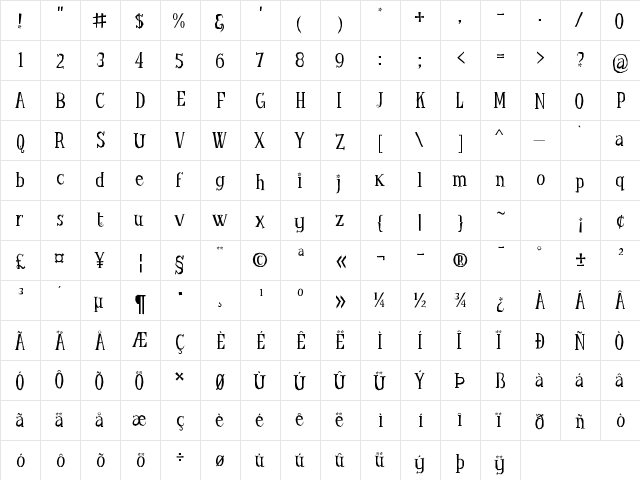
Little Trouble Girl Regular
| Foundry | BV Fonts |
| Designer | Jess Latham |
Design Context for Little Trouble Girl Typeface
Little Trouble Girl offers clean, dependable letterforms without strong stylistic allegiance, making it a practical choice for designers who need flexibility.
Pro Tip: Use Little Trouble Girl in both headline and body roles to test its range before committing to a single application.